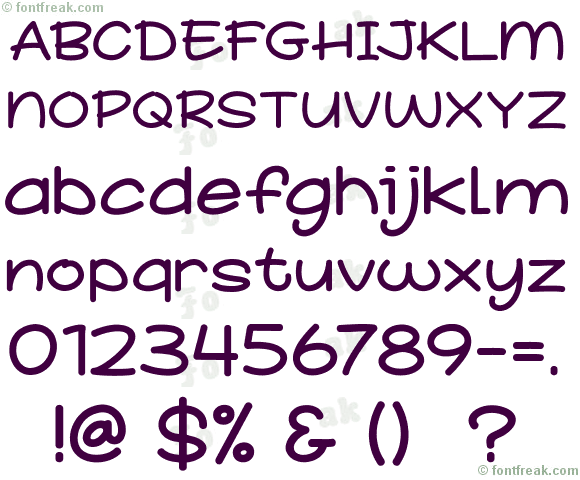
School Story
About School Story
School Story, designed by Chris Vile, is a delightful handwritten font that encapsulates the whimsical essence of childhood. As a free-to-download typeface under freeware licensing, it brings a playful yet sophisticated touch to various design projects. The font features a medium stroke weight, which contributes to its legibility while maintaining an inviting, casual aesthetic. The rounded edges and slightly irregular letterforms evoke a sense of authenticity, reminiscent of the handwritten notes and stories created during school days.
With its charming visual characteristics, School Story is particularly well-suited for a range of creative applications. It shines in educational materials, adding a friendly vibe to worksheets and classroom decorations. This font is also perfect for children's book covers, where its playful and approachable style can resonate with young readers. Additionally, it can enhance invitations for school events or birthday parties, ensuring that the details are communicated in a fun, engaging way. Graphic designers and content creators will find that School Story can elevate social media graphics, providing a unique touch that captures attention.
The target audience for this font includes graphic designers, small business owners, and content creators looking for a distinctive typeface that conveys a sense of joy and creativity. Whether it's for a classroom project or a brand aiming to connect with families, School Story offers versatility and appeal.
What sets the School Story font apart is its ability to evoke nostalgia while remaining contemporary. Its unique handwritten style not only adds warmth to any design but also encourages a sense of imagination and storytelling. For those interested, the School Story font free download is an excellent opportunity to incorporate this enchanting typeface into your next project.